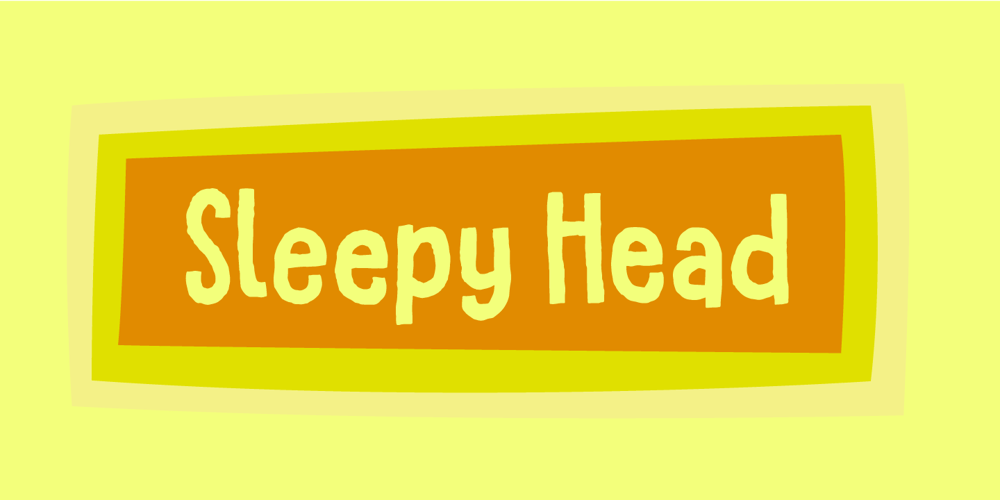
Sleepy Head
Sleepy Head font
Sleepy Head Font Family was designed by Jakob Fischer and published by PizzaDude.dk. Sleepy Head contains 2 styles and family package options. Sleepy Head is a comic sans serif with slightly geometric curves, Perfect for anything that has the need for a casual display font. Comes with 5 different versions of each letter and multilingual support!